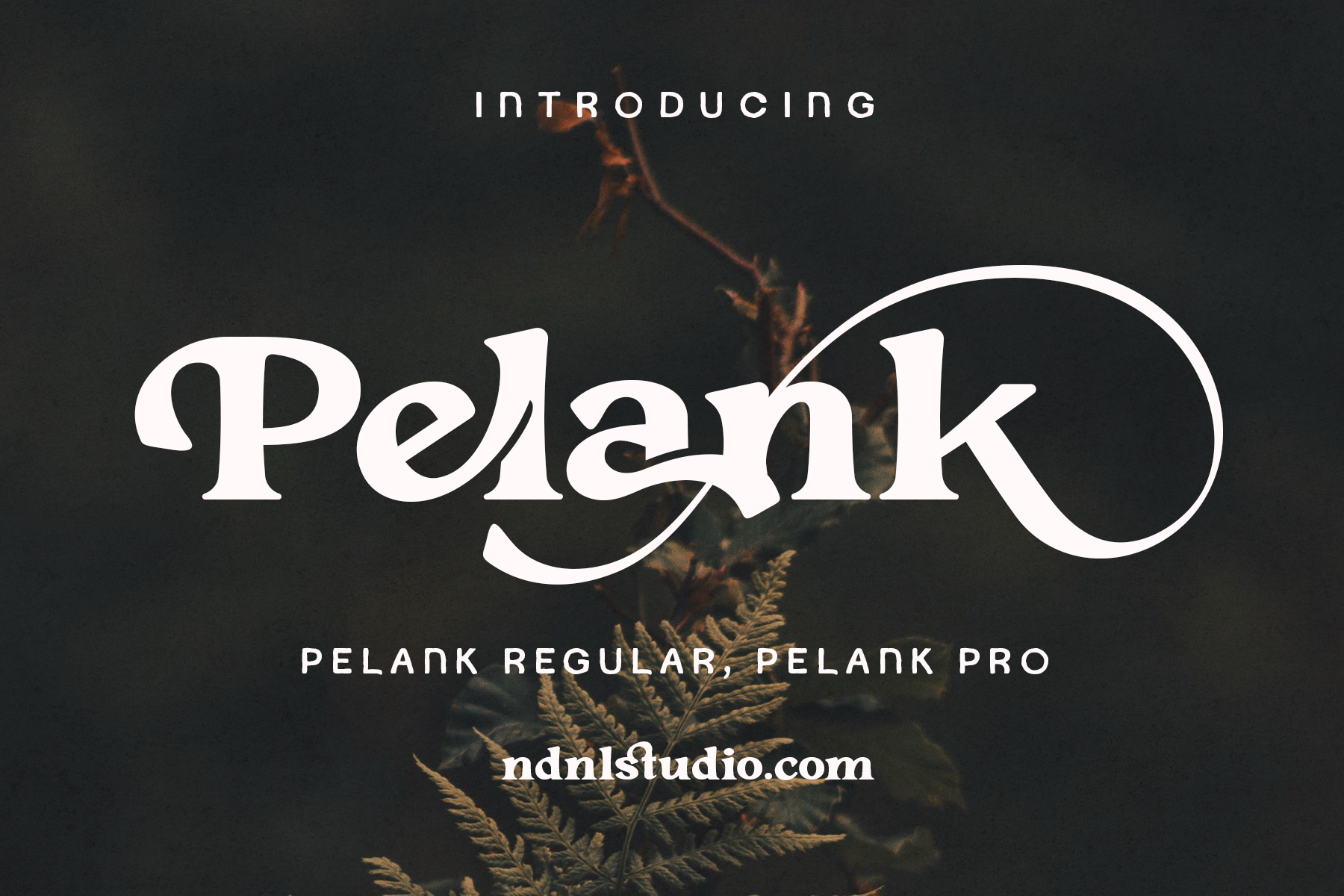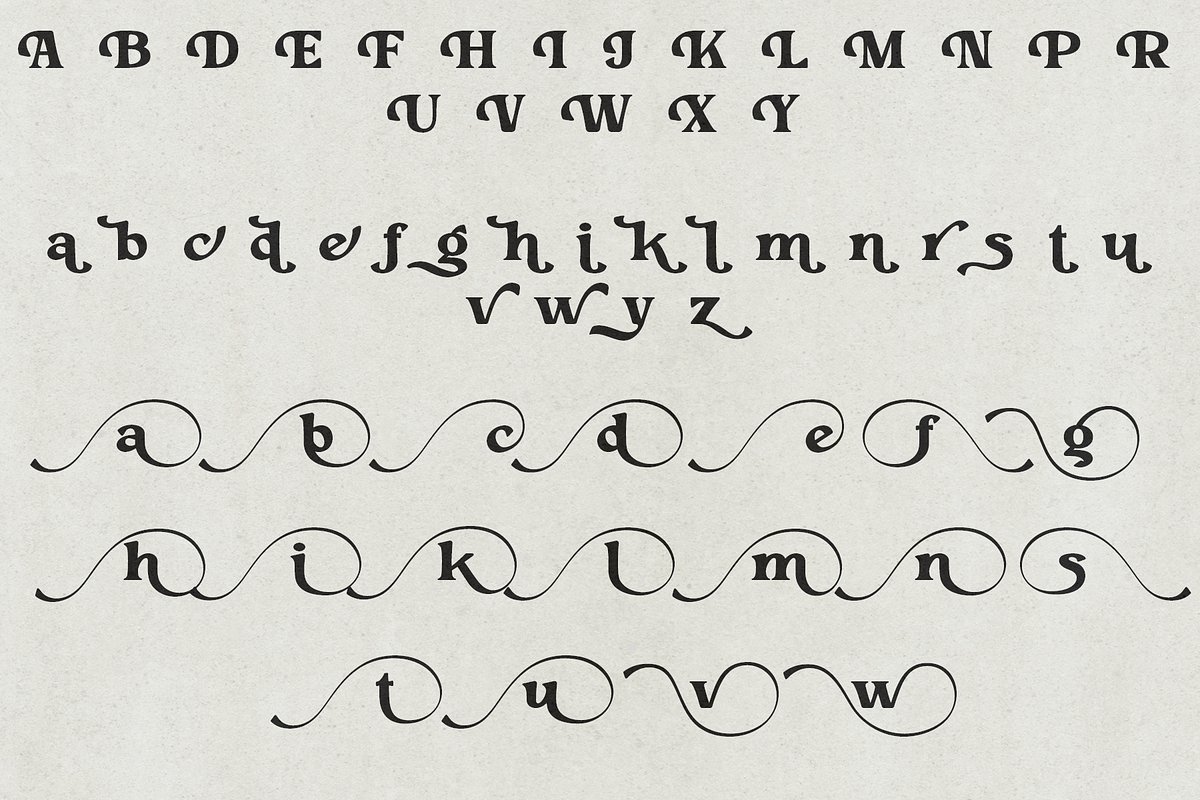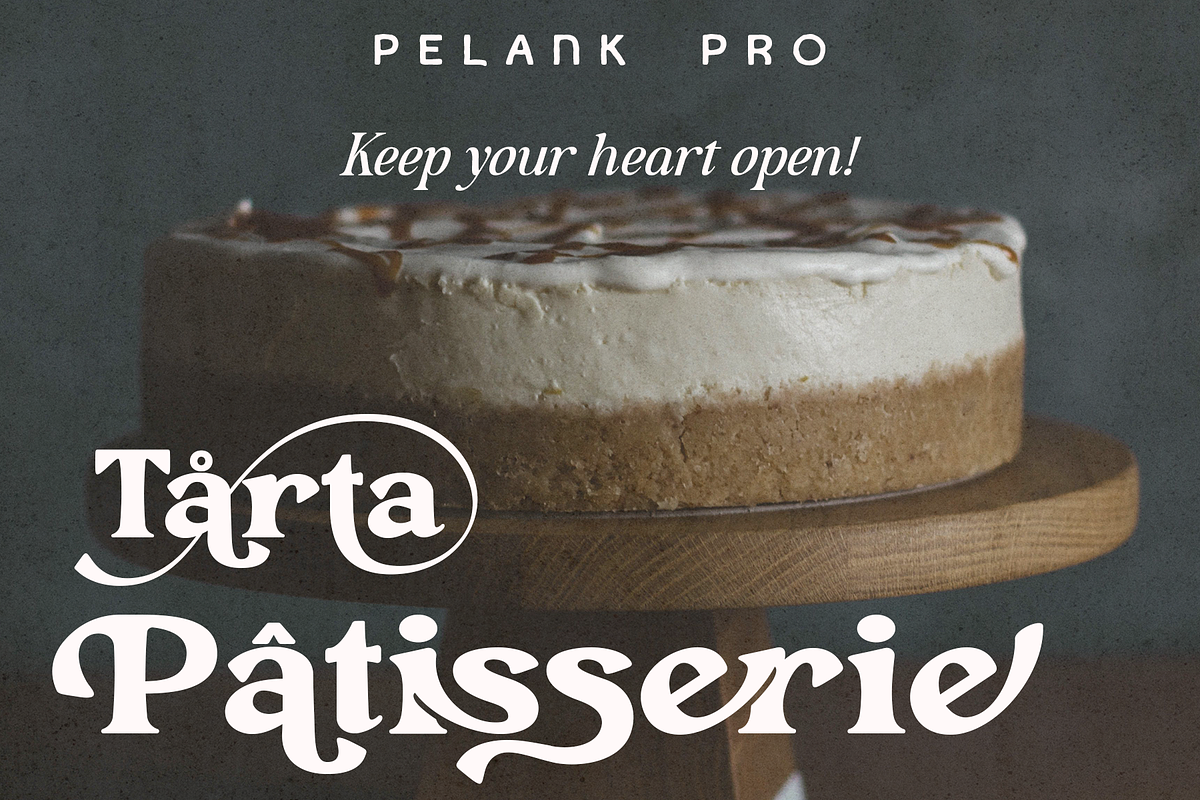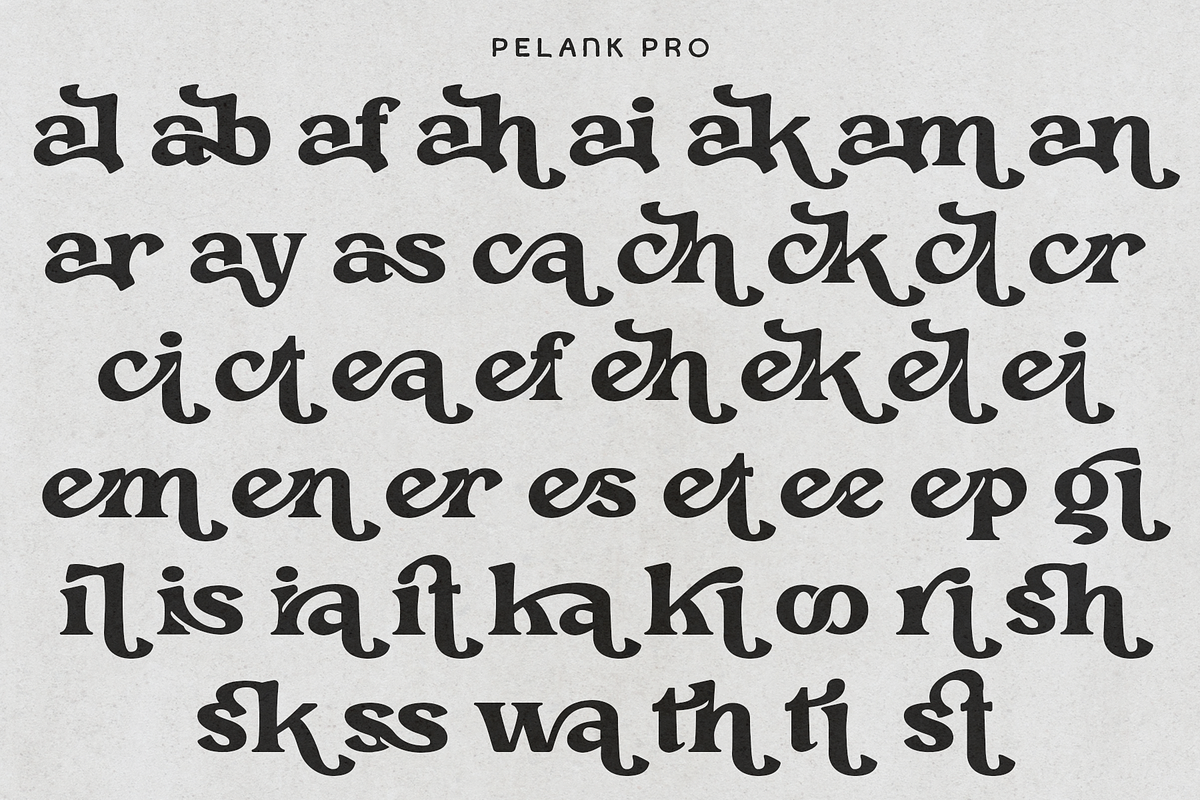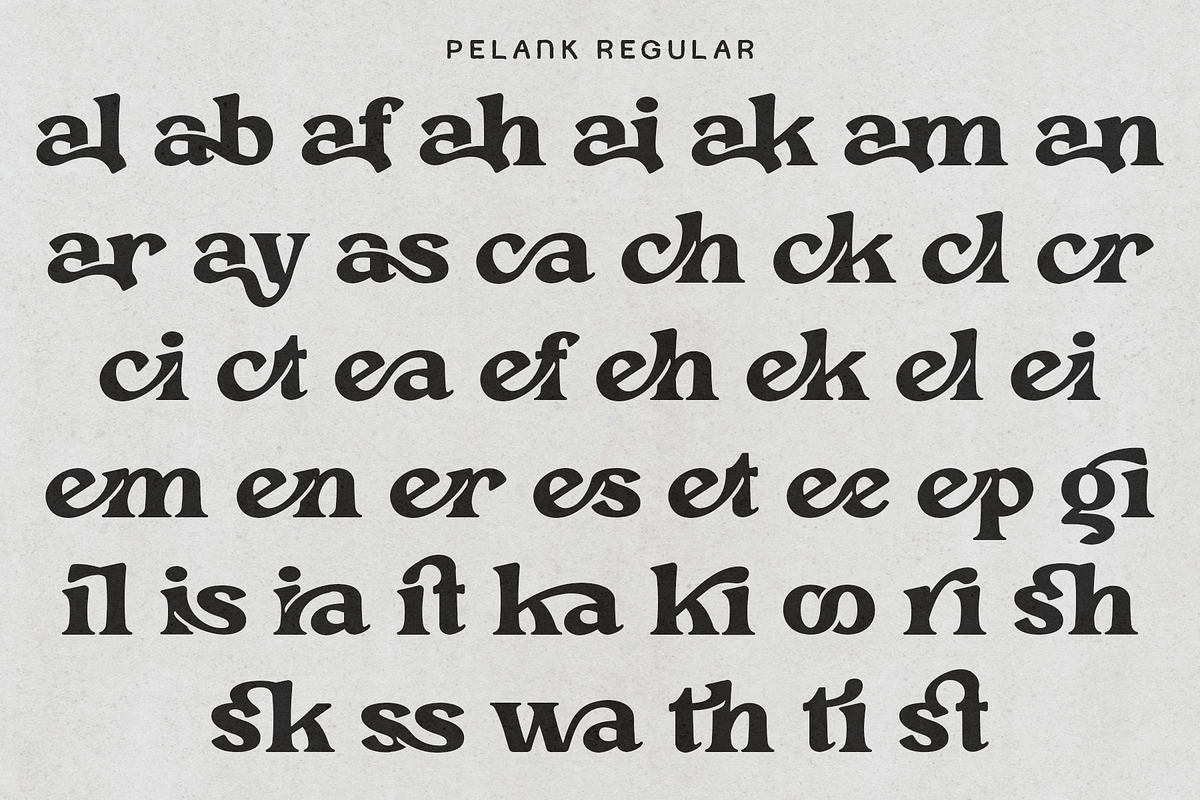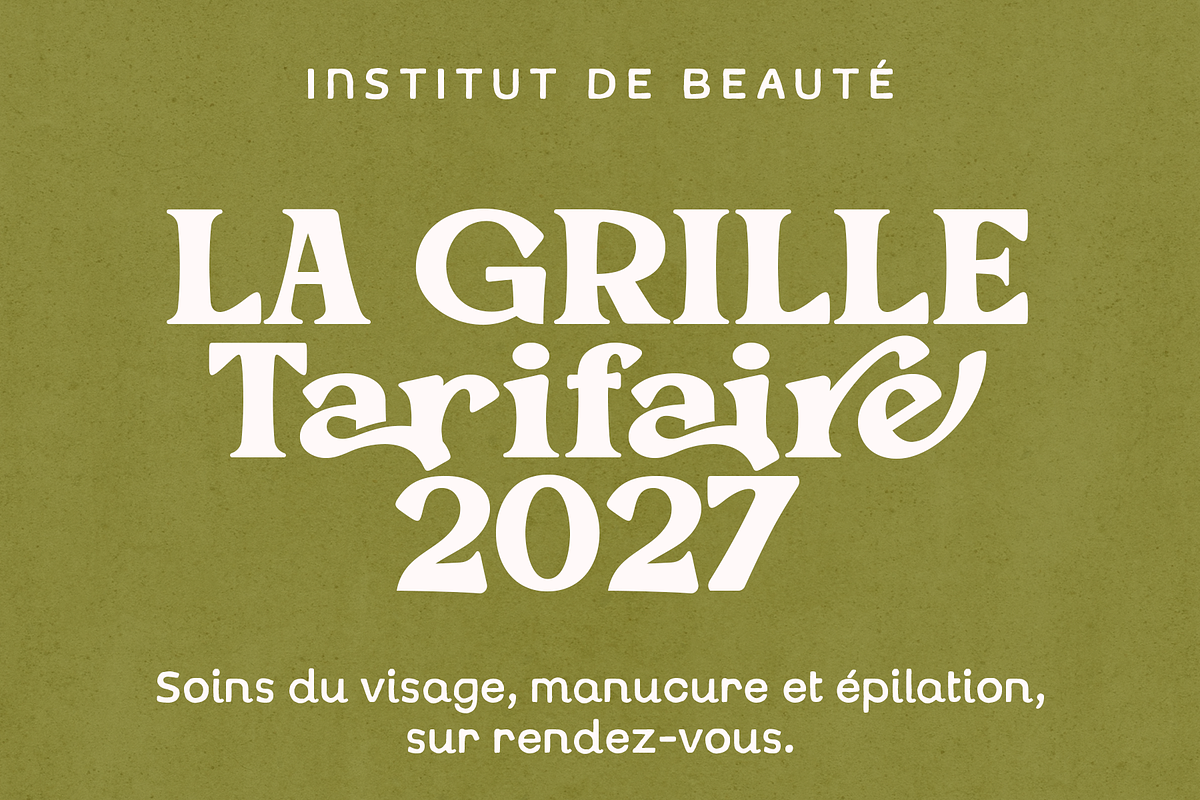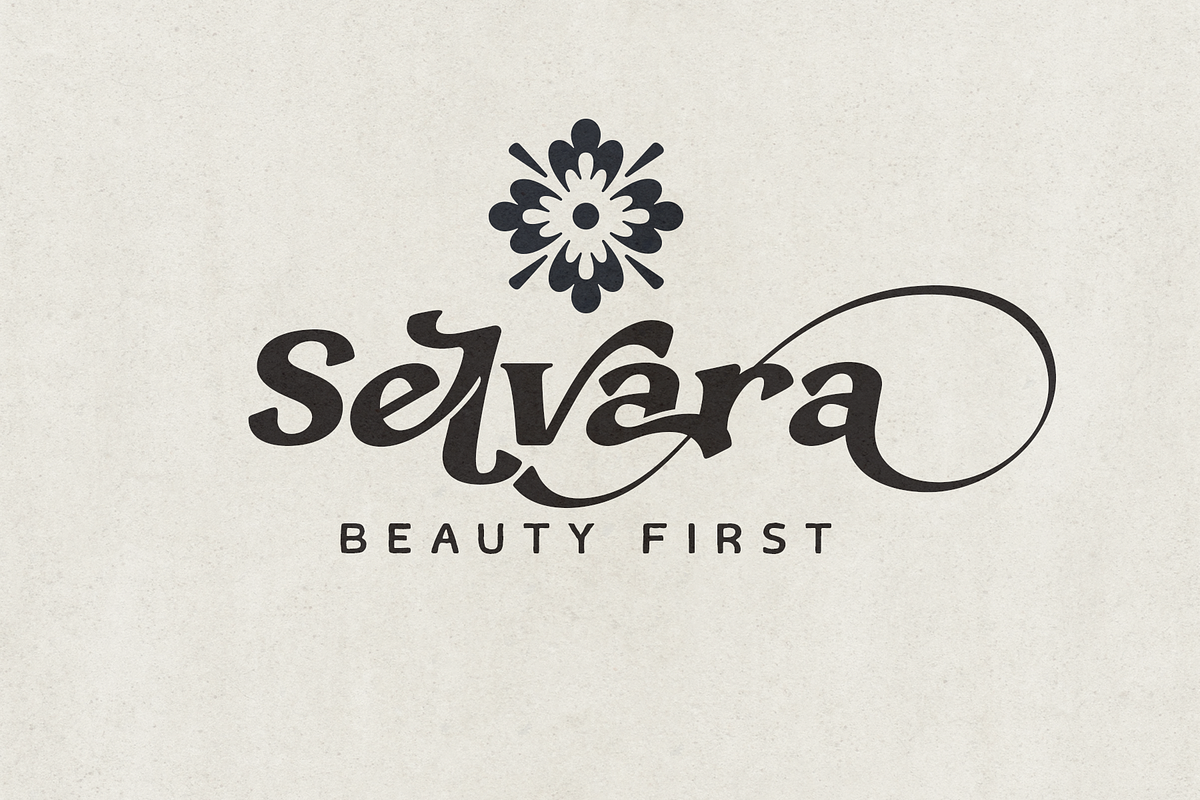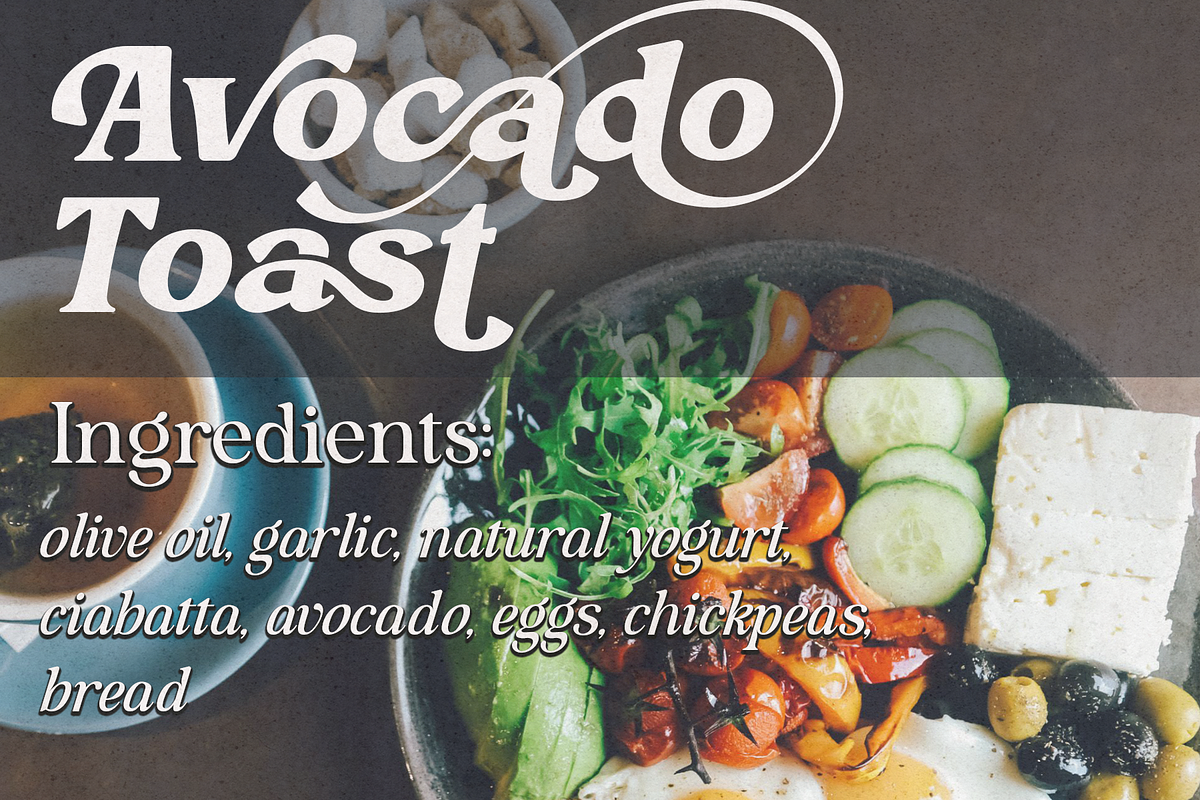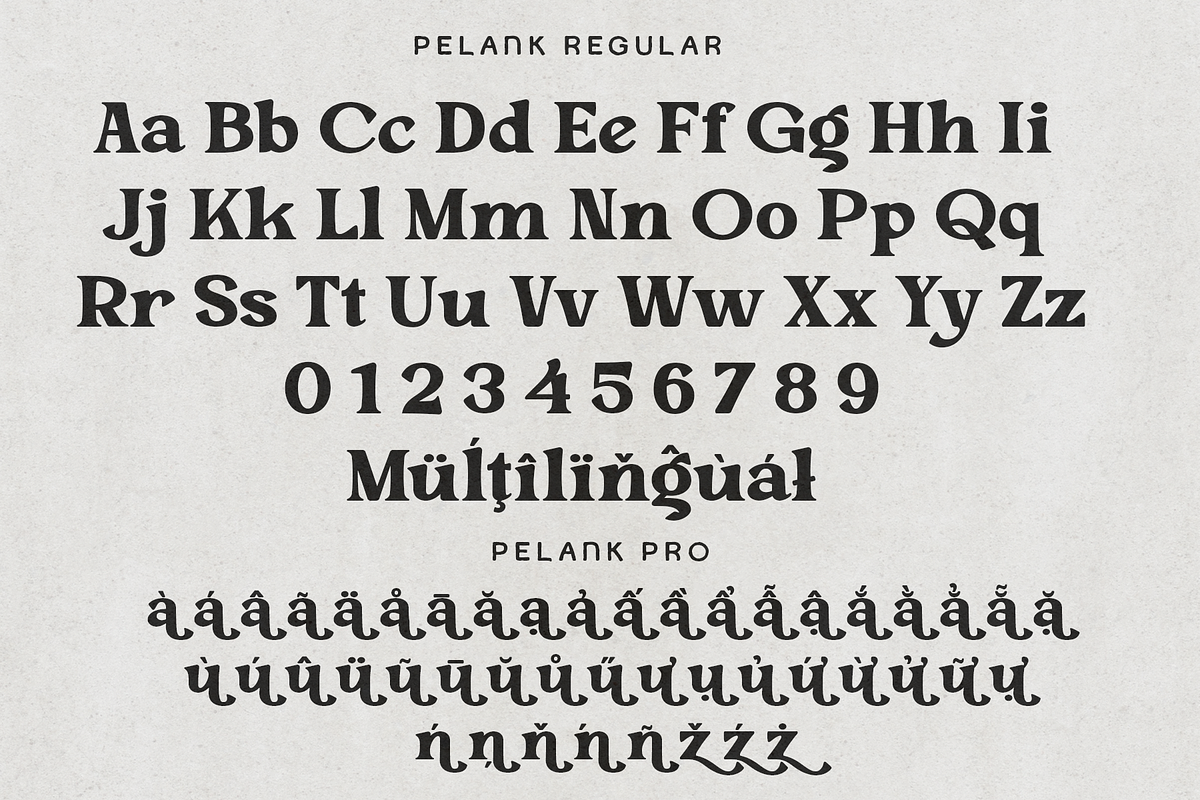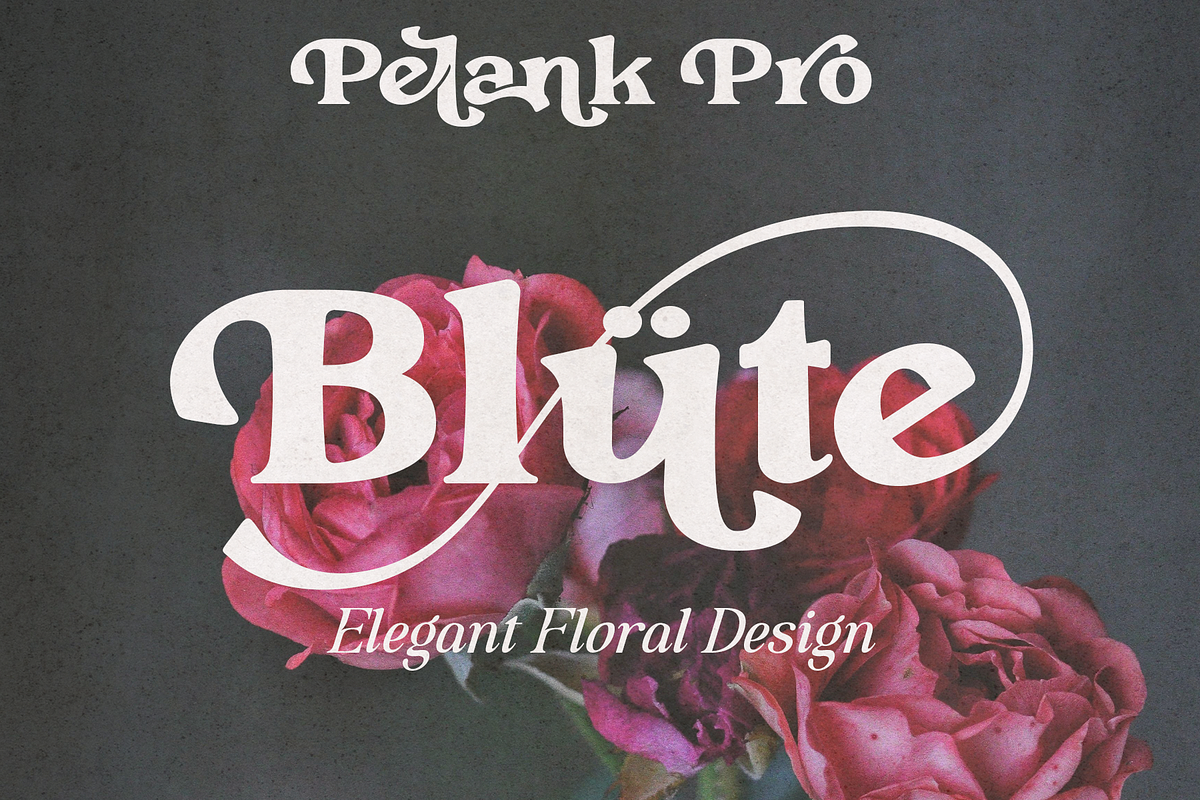
Pelank – Serif Font
Pelank is a bold and expressive serif font that blends classic letterforms with distinctive, flowing details. Its elegant curves, dramatic shapes, and extended swashes create a strong yet artistic personality, making it stand out beautifully in both modern and sophisticated designs.
Pelank is a great choice for logos, branding, fashion, editorial designs, posters, packaging, invitations, headlines, and creative display projects. With its unique character and striking presence, Pelank brings an elegant and memorable touch to every composition.
– Character set A-Z
– Uppercase & Lowercase
– Numerals & Punctuation
– Accented Characters (West Europe)
– Ligatures
– Extended Character Set